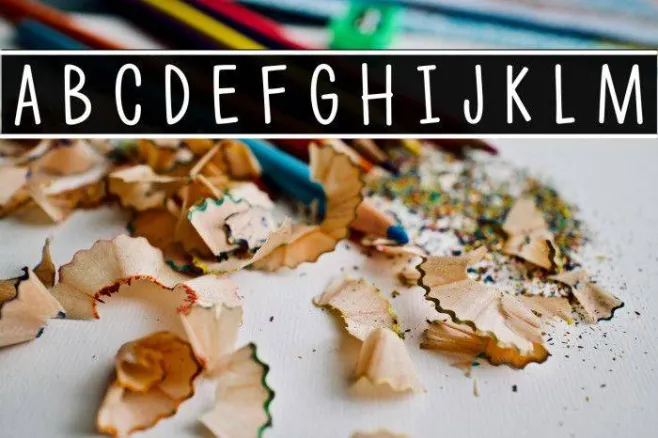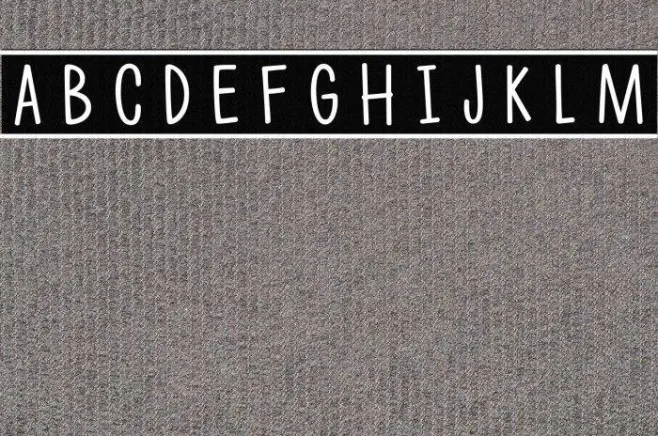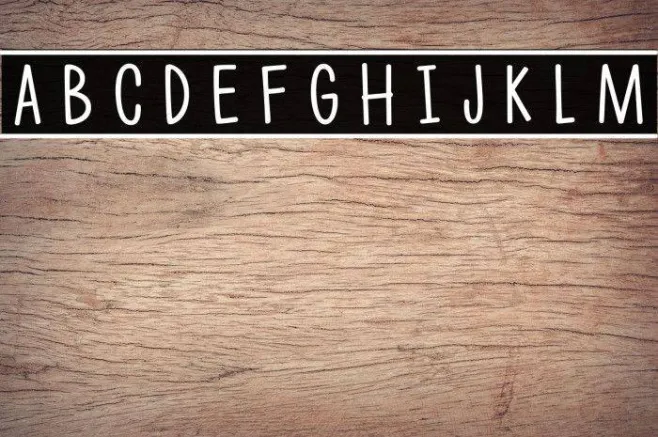
[Pencilized] Font
[Pencilized] Description
This font features a playful and casual handwritten style, reminiscent of pencil sketches. The letters are slightly irregular, giving them a natural and organic feel. The strokes are consistent in width, providing a uniform appearance across all characters. The uppercase and lowercase letters maintain a cohesive look, with rounded edges and a slight tilt that adds to the informal charm. The numerals and special characters are designed to match the overall aesthetic, making this font versatile for various applications.
| Proposed Projects | Ideal for children's books, casual invitations, personal notes, and creative projects that require a friendly and approachable look. |